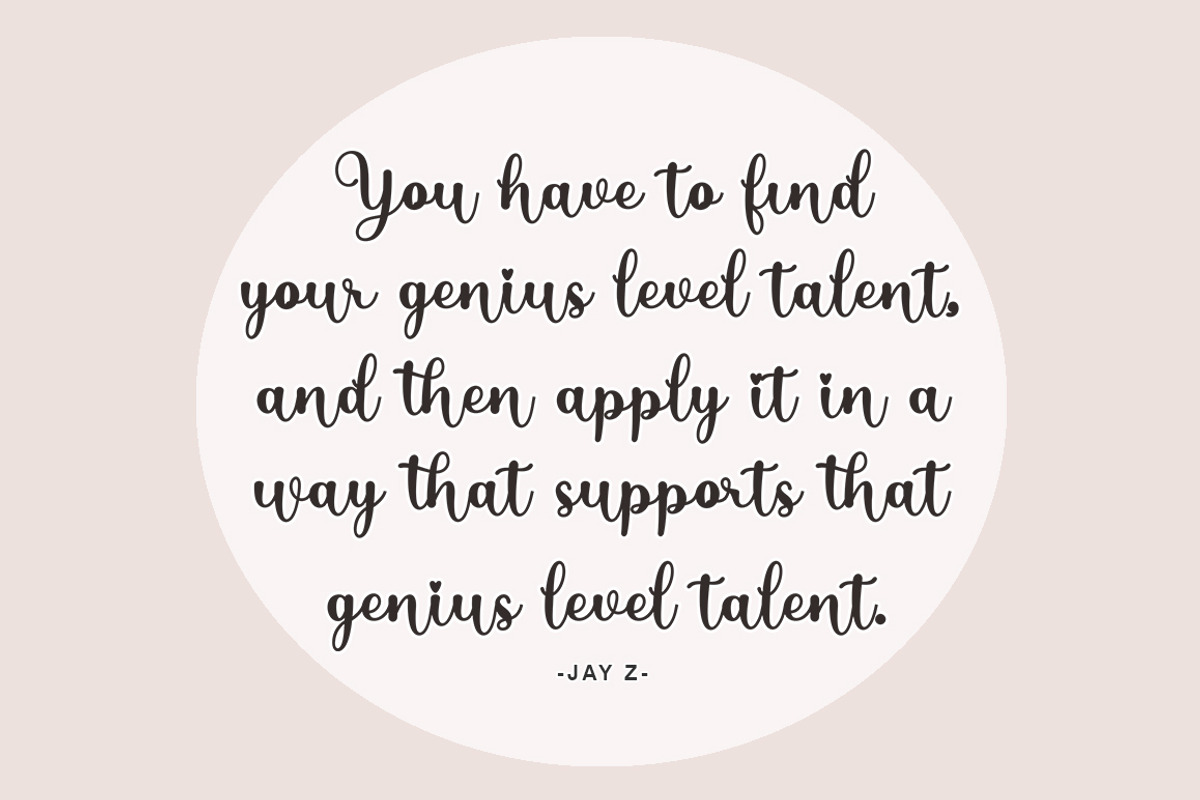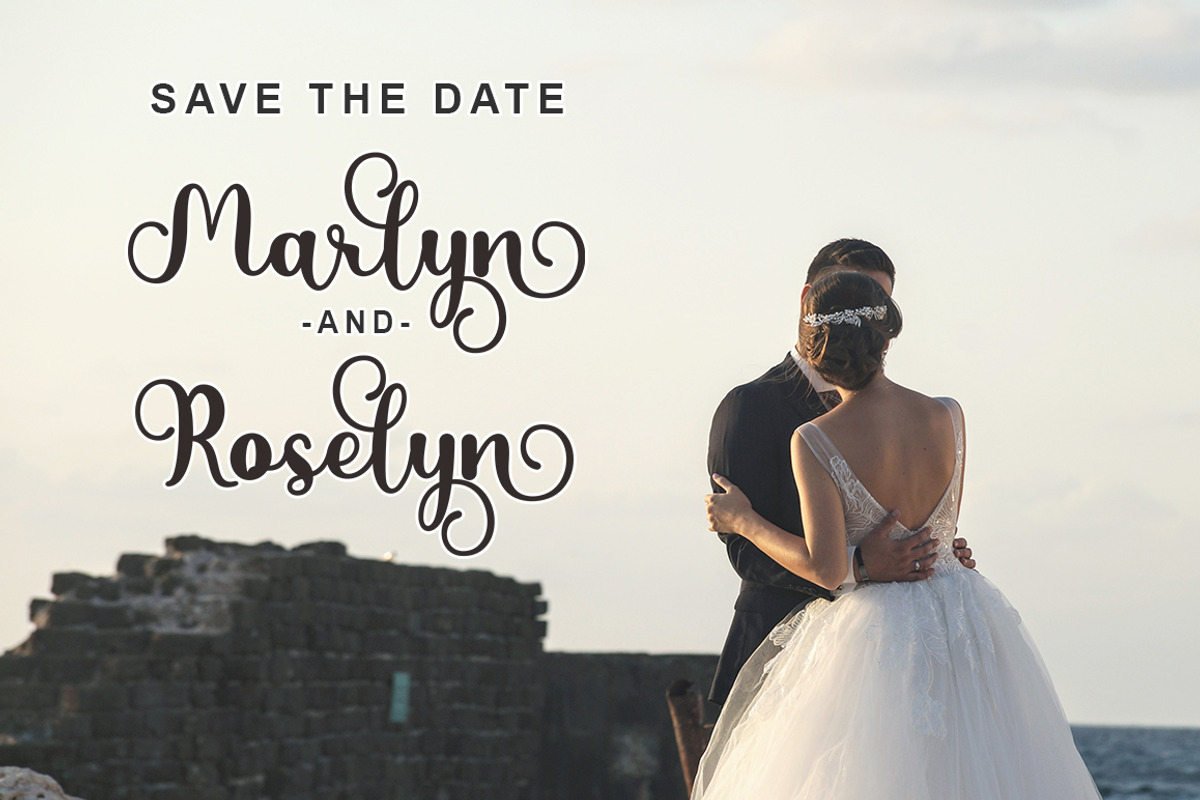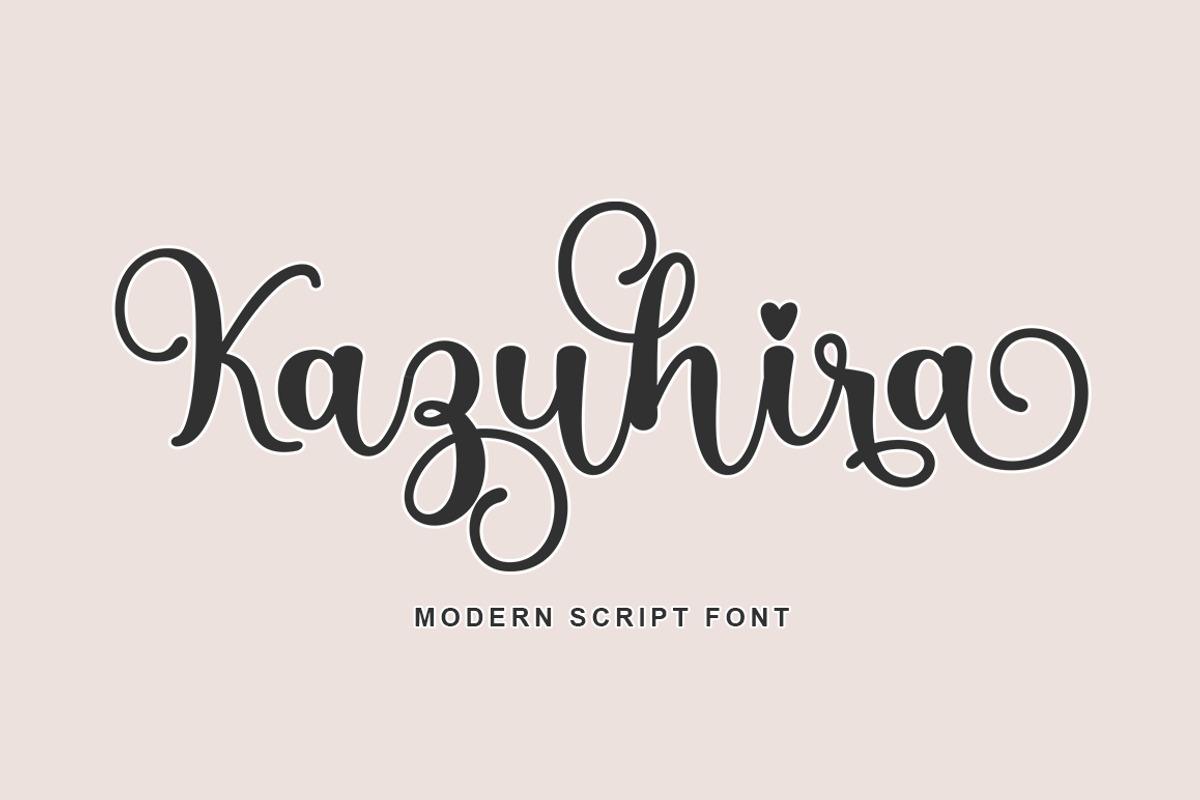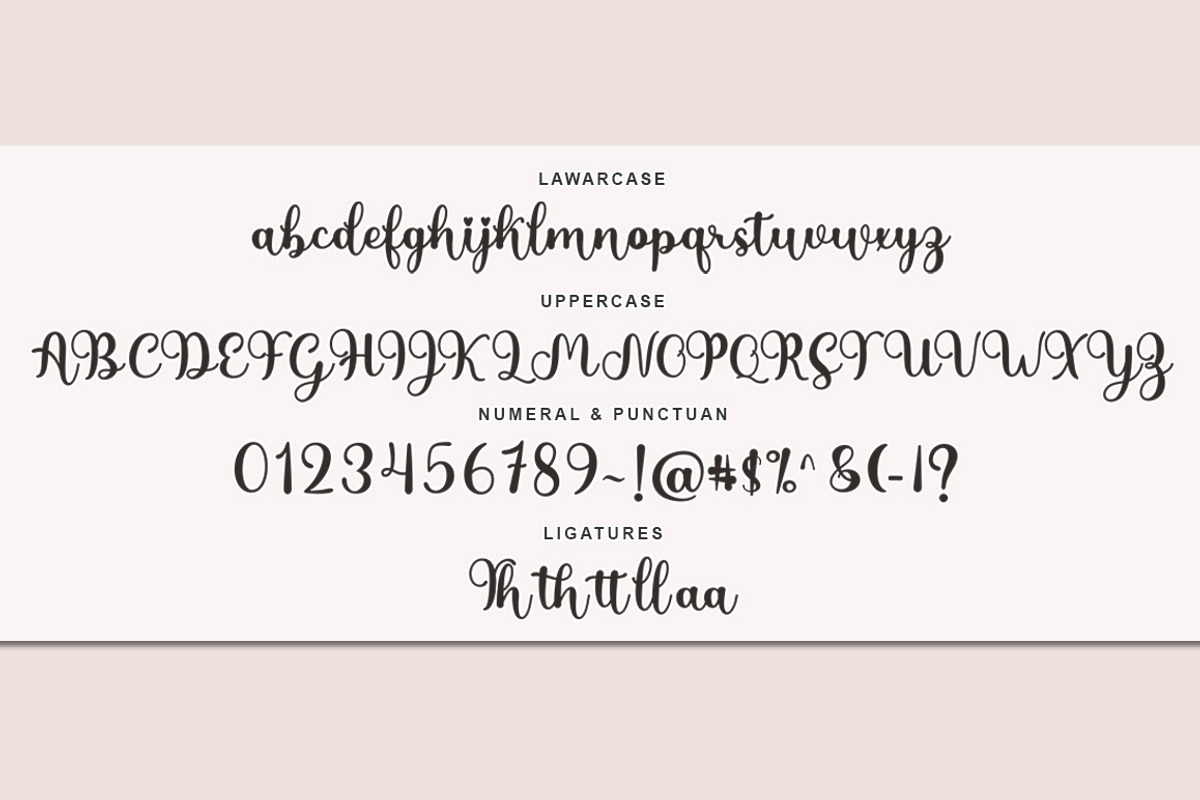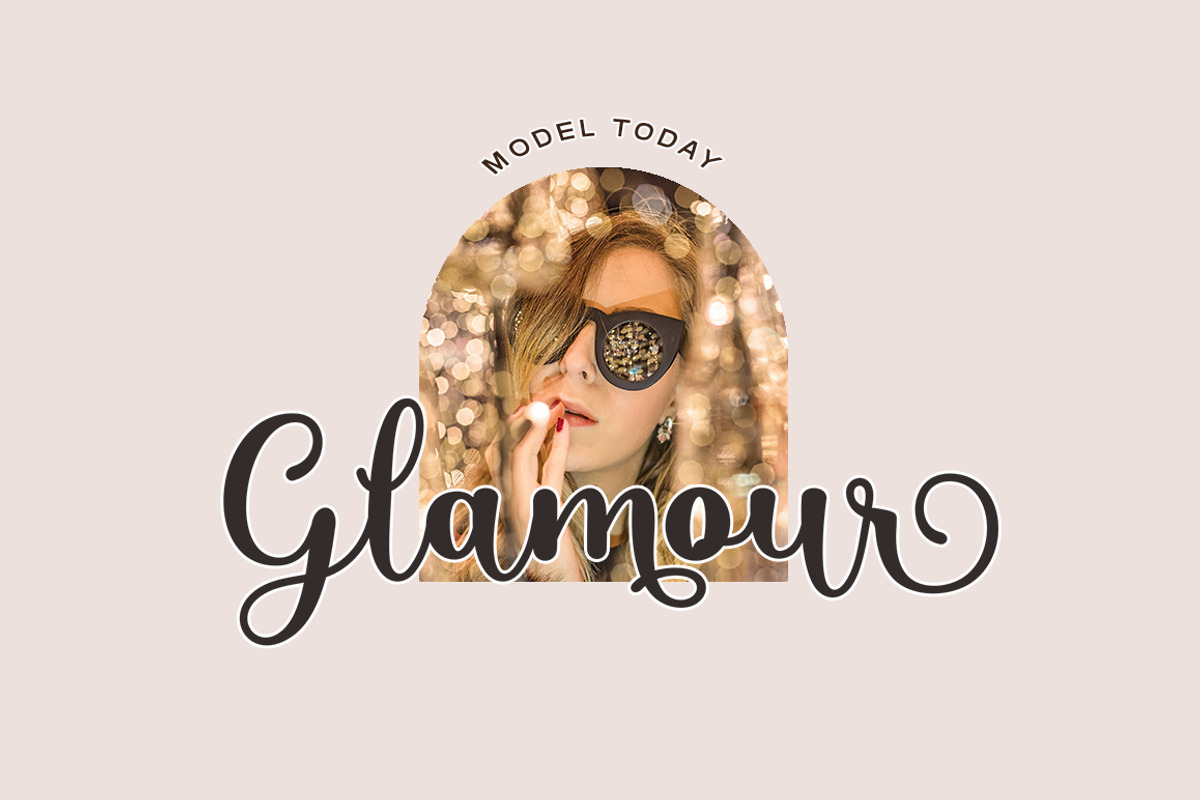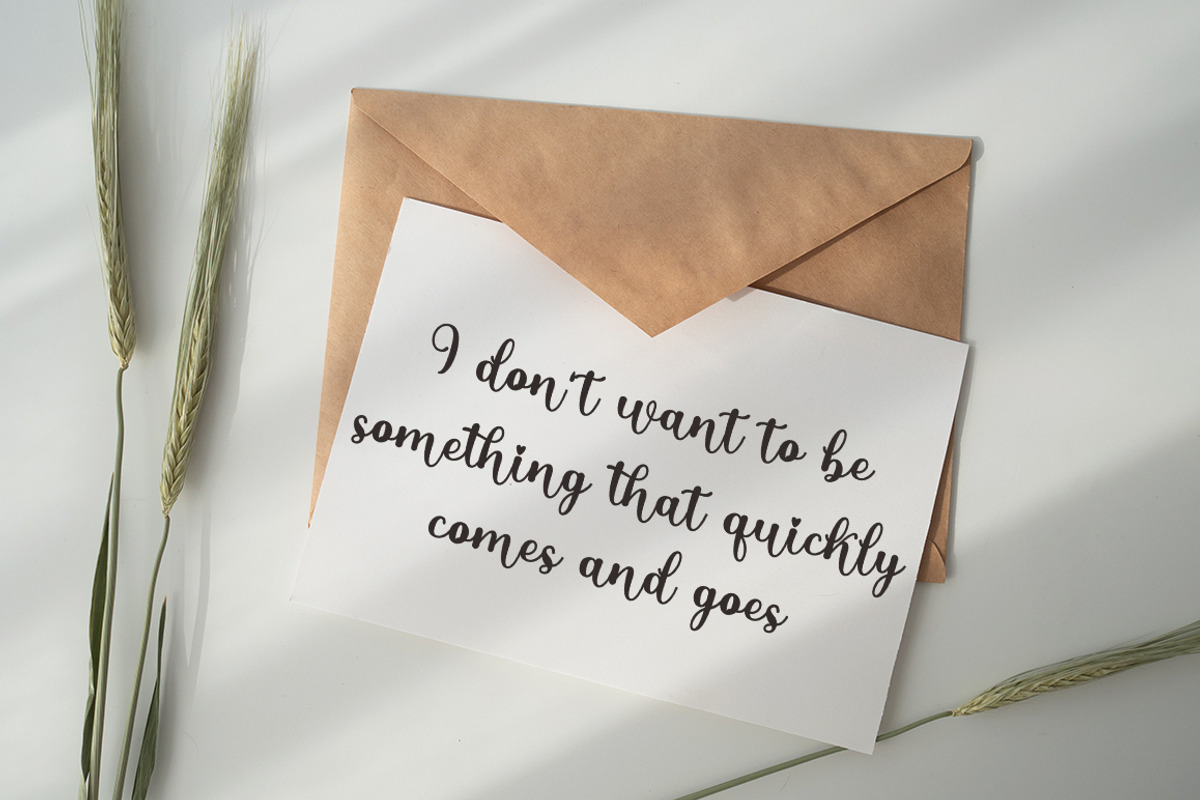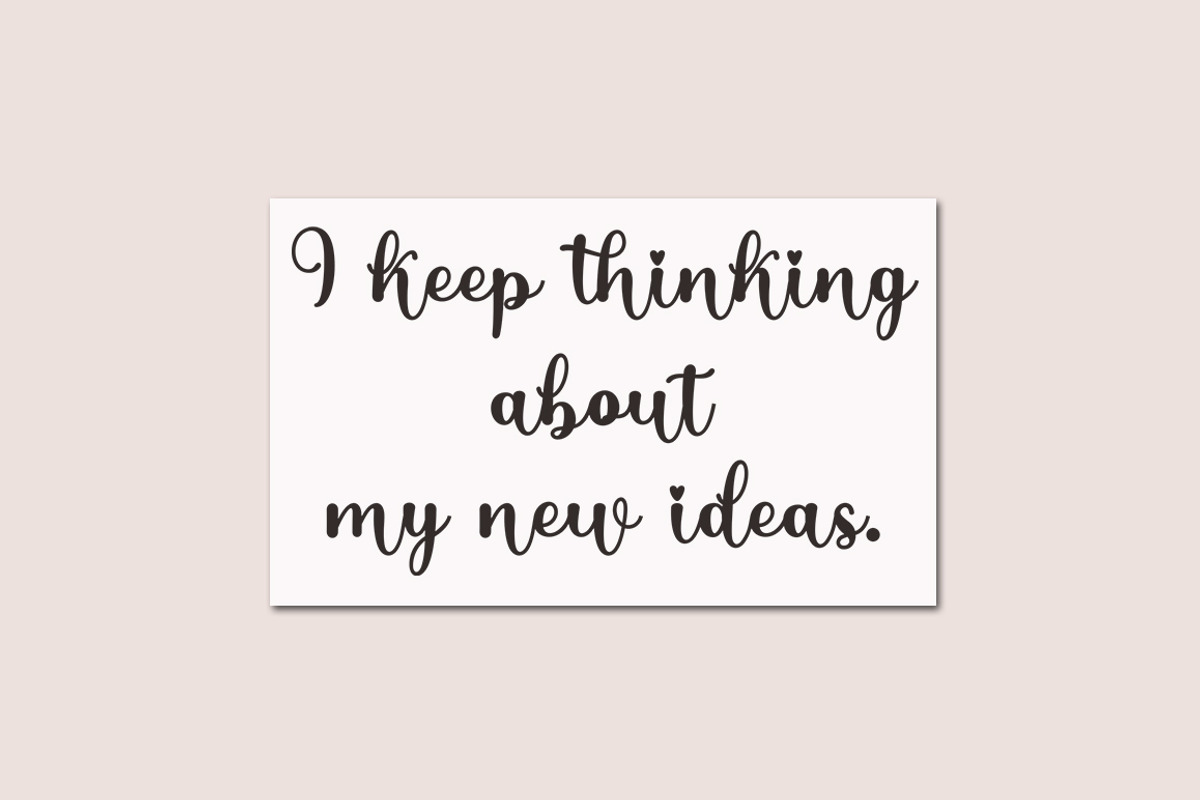
Kazuhira Family Font
Kazuhira is a script type family of four fonts. It is inspired by Elegant Fonts and has a soft and friendly look Kazuhira can be used for branding, packaging and anywhere else you need a script font that is readable and smooth. Kazuhira has many ties, strokes and alternate characters that will make your designs unique and beautiful.